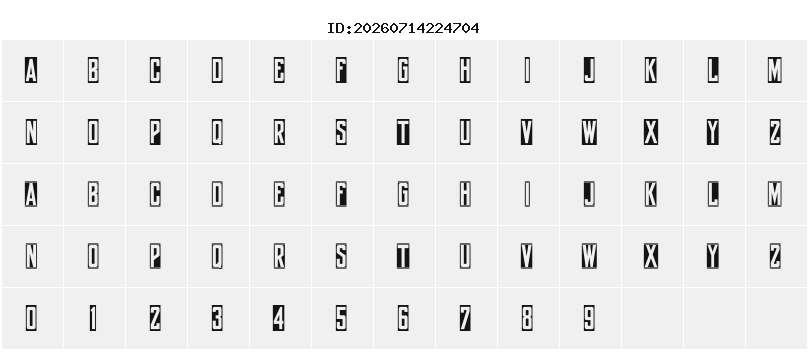
yorkwhiteletter Preview
• Font Name: yorkwhiteletter
• Full Font Name: yorkwhiteletter
About yorkwhiteletter.otf
yorkwhiteletter.otf is a modern, elegant sans-serif font designed for ultimate readability and visual harmony. Perfect for branding, headlines, web design, and print materials.